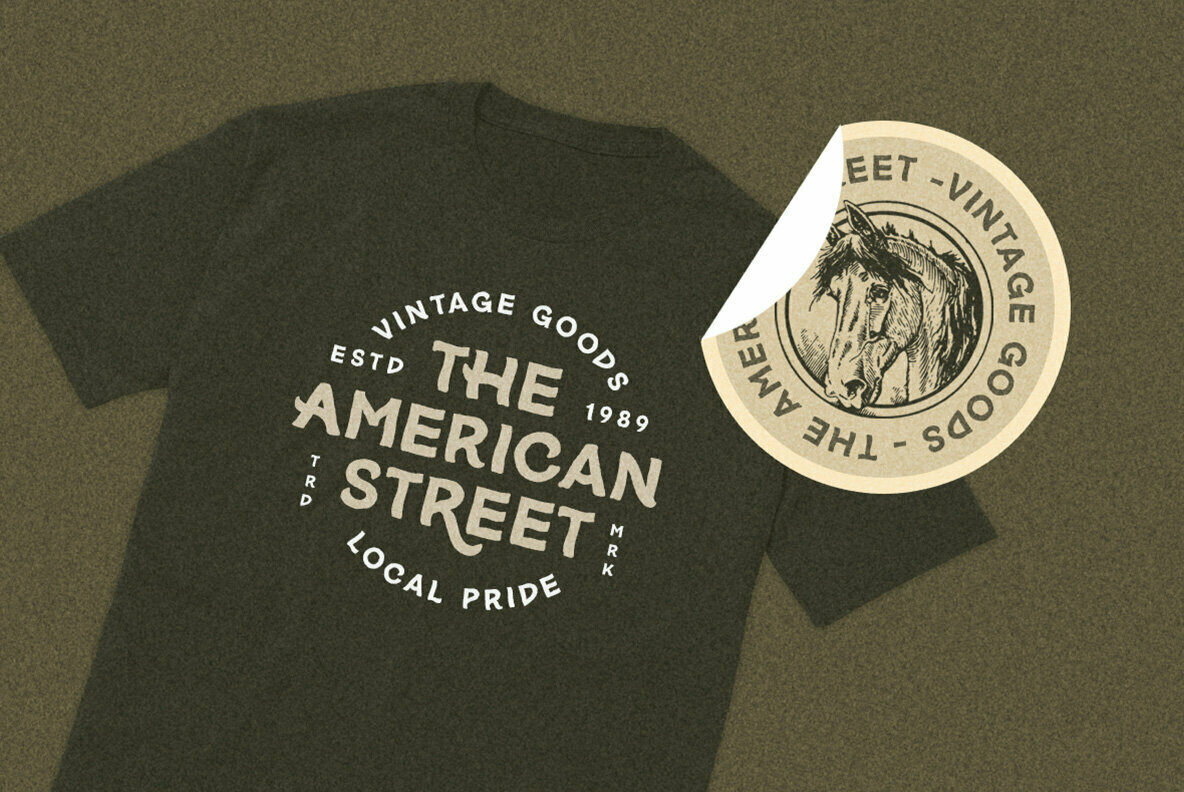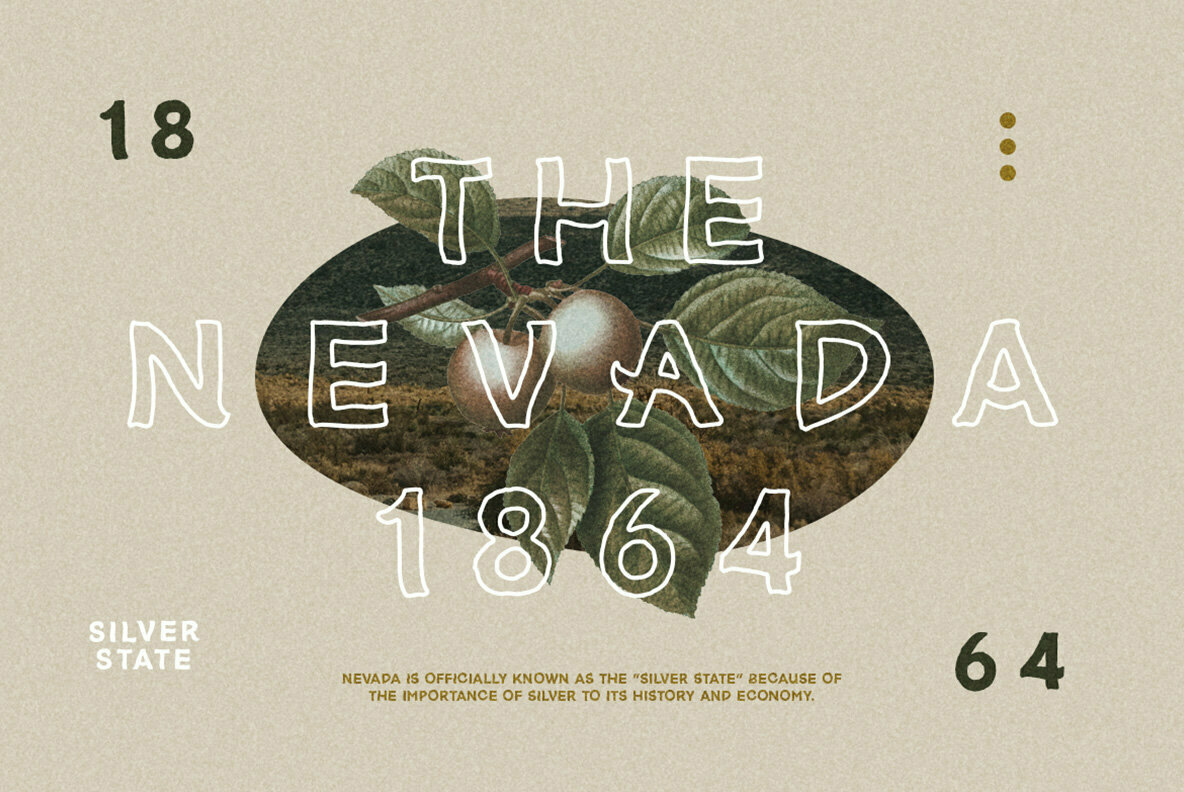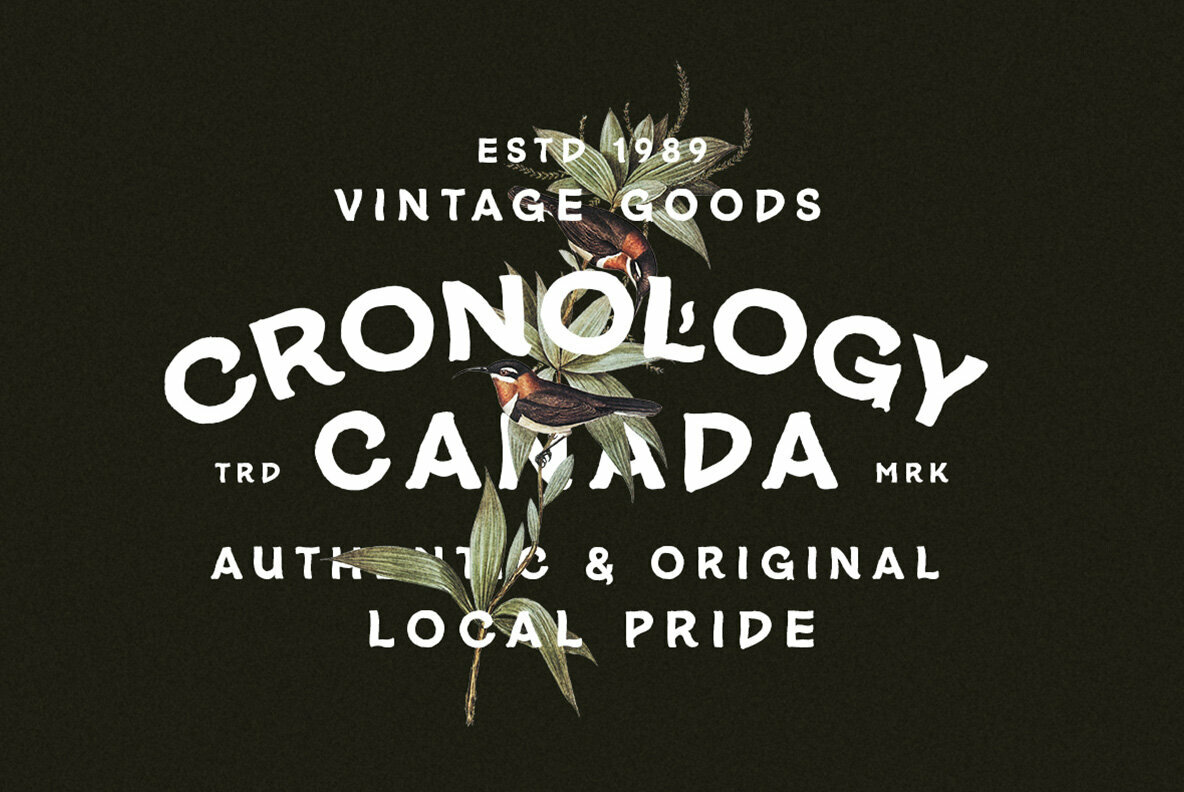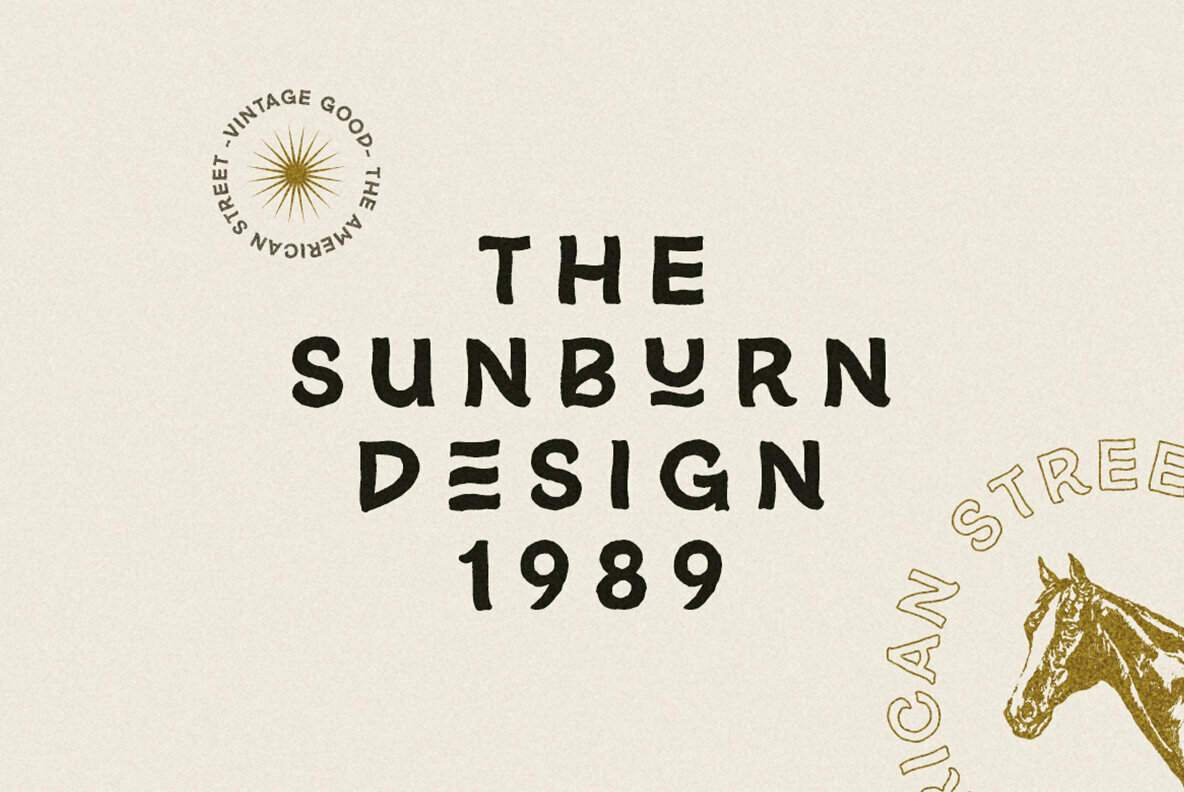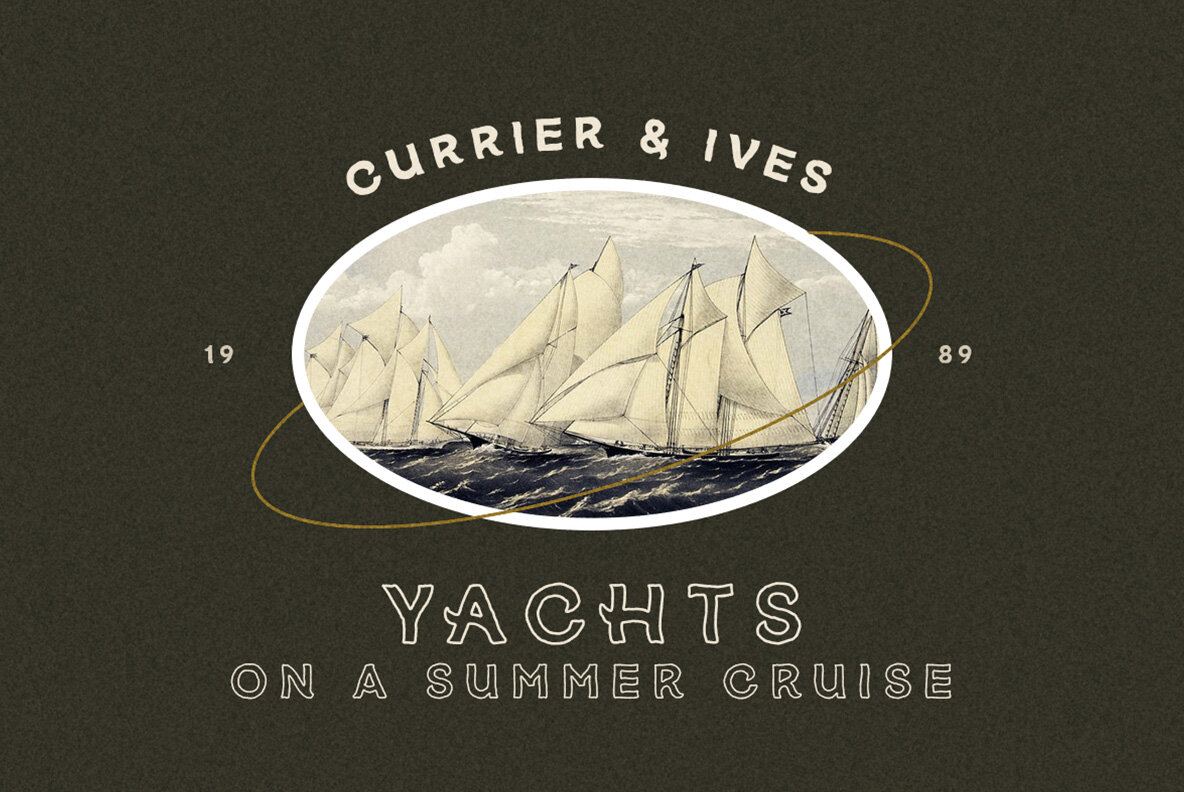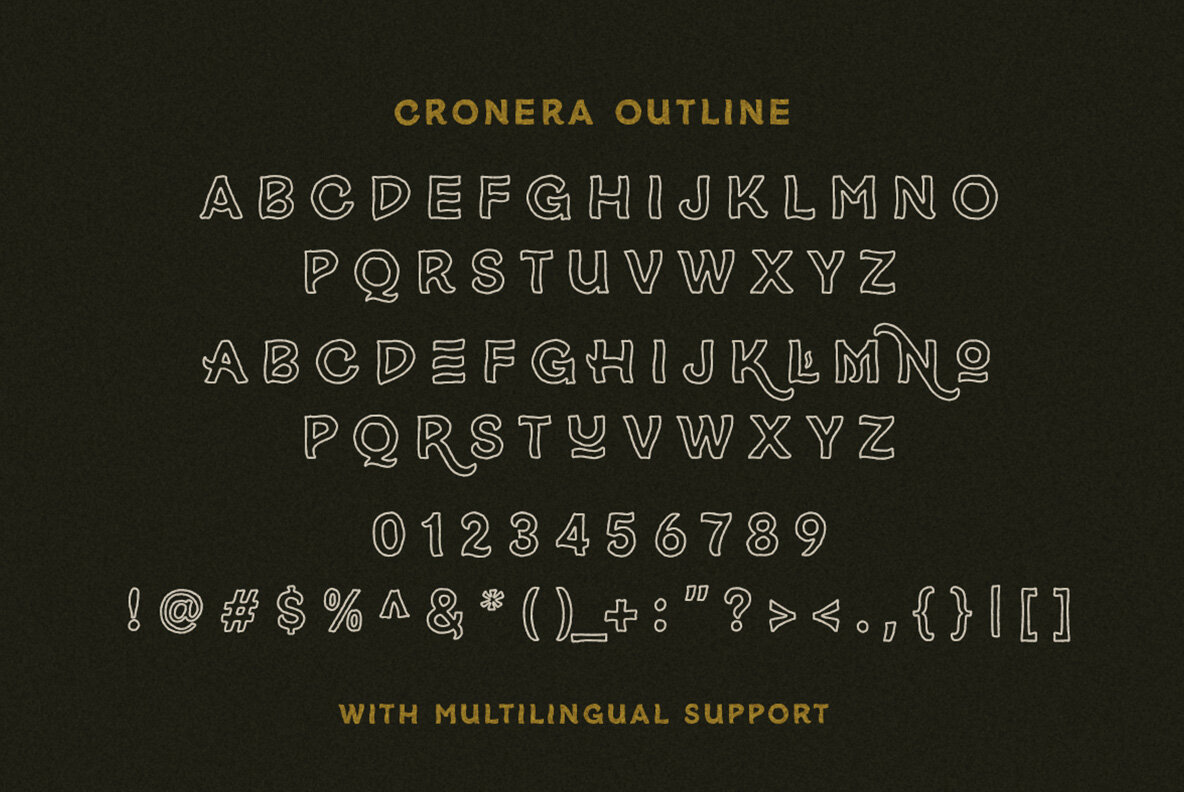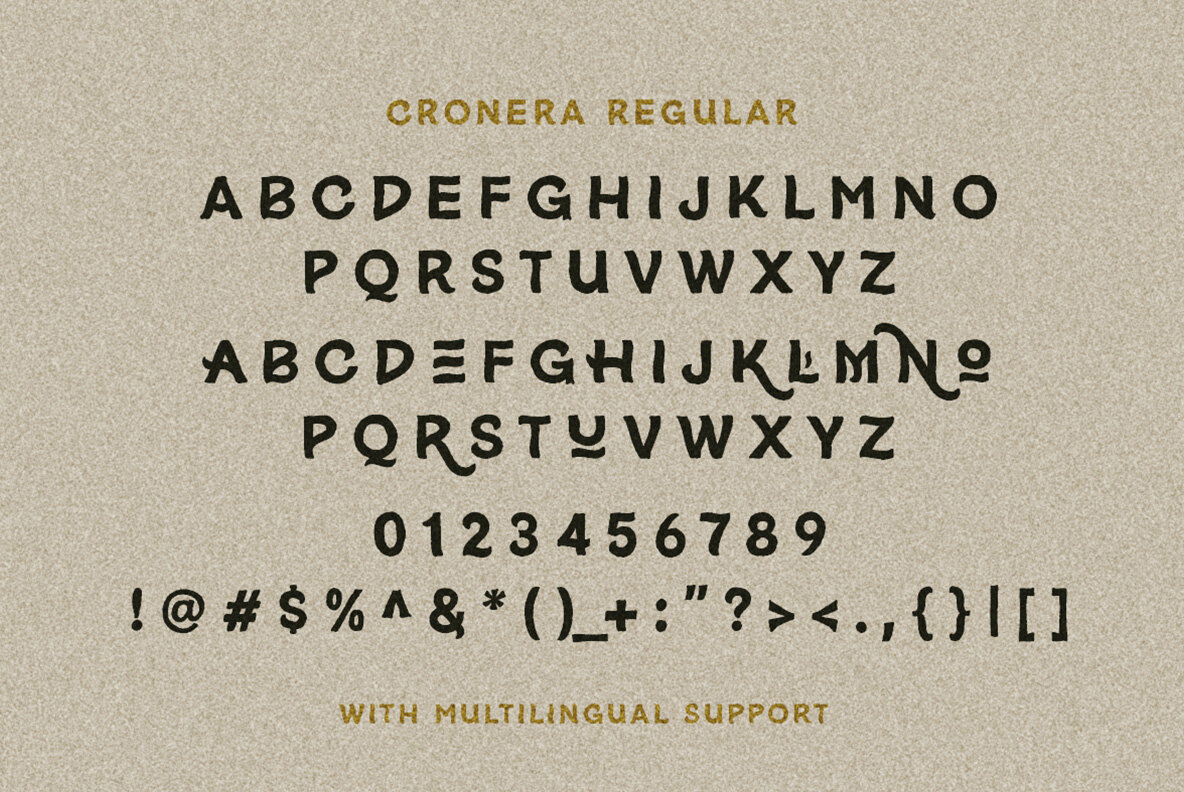
Cronera Font
The Cronera typeface, skillfully crafted by Sarid Ezra, embodies the essence of hand-lettering in a modern sans serif form. Its artistic design adds a natural and humanistic quality to your projects, making it a versatile choice for a variety of applications. Whether for a book cover, a trendy t-shirt, inspiring quotes, or distinctive branding, Cronera offers a unique appeal. The addition of an outline version enhances its adaptability, allowing it to shine in diverse settings.Cronera: Sans Serif with a Handcrafted Touch